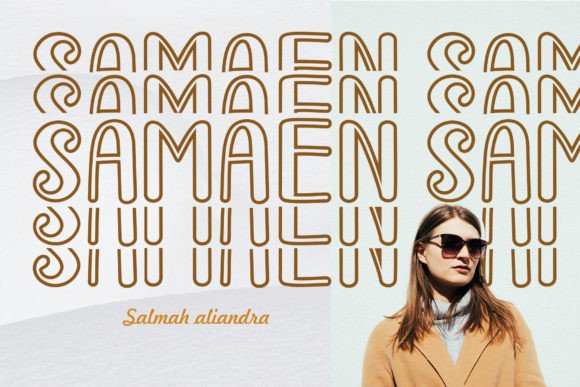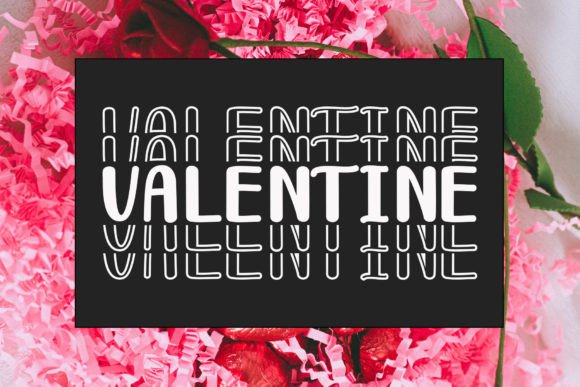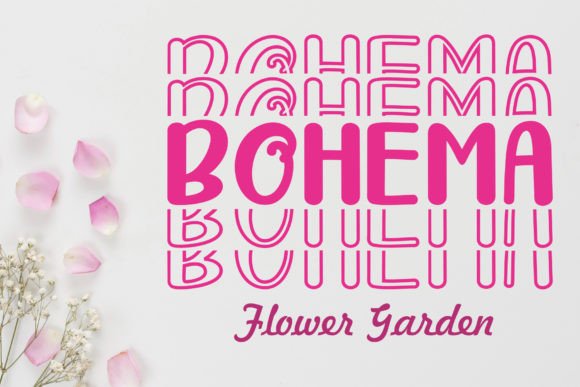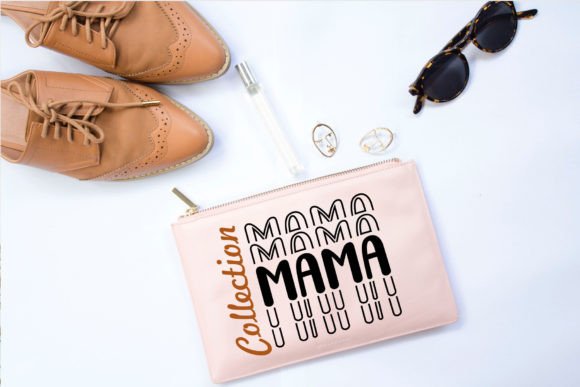
Introducing Barisan Font: Elevate Your Designs with a Stylish Stacked Look
Are you on the hunt for a font that adds a dash of fun and style to your projects? Look no further than Barisan Font! This display font boasts a trendy and stylish stacked look that’s sure to make your designs stand out. With its unique charm and versatility, Barisan Font is the perfect addition to your font collection, especially if you’re working on funky projects that demand a creative edge.
The Unique Appeal of Barisan Font
Barisan Font is not just any ordinary font. Its stacked design gives it a distinctive look that’s both modern and eye-catching. Whether you’re crafting a logo, designing a poster, or creating engaging social media content, Barisan Font brings a level of sophistication and playfulness that’s hard to achieve with standard fonts. The rendy and stylish vibe of Barisan Font makes it an excellent choice for designers and crafters looking to infuse their work with a bit of personality.
Adding Confidence to Your Designs
The recommendation to “add it confidently to your funky projects” is not just a suggestion; it’s a testament to the versatility and impact of Barisan Font. This font is designed to be a game-changer, allowing you to experiment with different styles and tones without compromising on quality or readability. When you integrate Barisan Font into your designs, you’re not just adding a font; you’re elevating the entire aesthetic and appeal of your project.
Why Designers and Crafters Love Barisan Font
1. Versatility
Barisan Font’s stacked look is surprisingly versatile. It can be used in a variety of contexts, from digital media to print, and still manage to captivate the audience. Whether you’re designing for a youthful audience or creating content for a more mature demographic, Barisan Font adapts beautifully, ensuring your message is delivered with style and impact.
2. Ease of Use
One of the best things about Barisan Font is its ease of use. Even if you’re not a seasoned designer, incorporating Barisan Font into your projects is a breeze. Its compatibility with various design tools ensures a seamless integration process, allowing you to focus on the creative aspects of your project rather than technicalities.
3. Uniqueness
In a sea of fonts, Barisan Font stands out for its uniqueness. The stacked look is not only stylish but also ensures that your designs are instantly recognizable. For designers and crafters looking to leave a mark and make their work memorable, Barisan Font is an invaluable asset.
Tips for Making the Most of Barisan Font
1. Experiment with Colors
Barisan Font looks great in bold colors, but don’t be afraid to experiment with different hues and gradients. The right color scheme can enhance the font’s impact, making your designs even more compelling.
2. Play with Sizes
The stacked design of Barisan Font lends itself well to creative sizing. Experiment with different font sizes to create a hierarchy of information or to add emphasis to certain parts of your design.
3. Combine with Other Fonts
For added versatility, try pairing Barisan Font with complementary fonts. The contrast between Barisan’s stacked look and a more traditional font can create a visually appealing design that’s both dynamic and engaging.
Barisan Font is more than just a display font; it’s a design statement. Its trendy and stylish stacked look makes it the perfect choice for designers and crafters looking to add a bit of flair to their projects. With its versatility, ease of use, and unique appeal, Barisan Font is set to become a staple in your font collection. So why wait? Add Barisan Font to your projects with confidence and watch as your designs transform into something truly special.